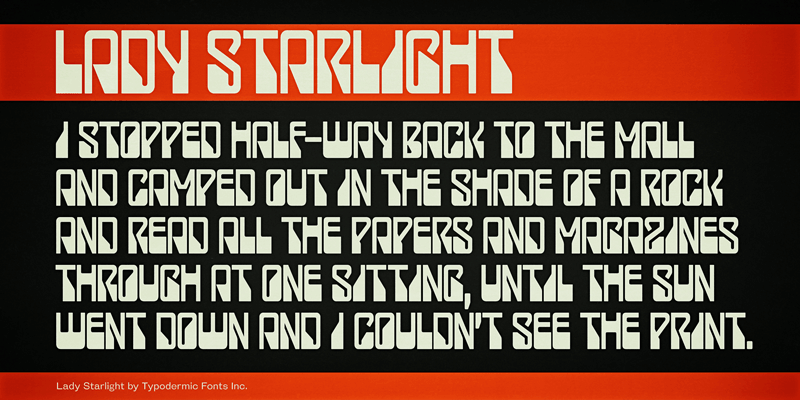
I created the original Lady Starlight font back in 1999, based on the Scorpions band logo. I later noticed that the same font had been used in the 1975 film, Rollerball. Recently, I redrew the entire font, heavier & more precise with more emphasis on working geometric shapes off the waistline. This font includes a license that allows free commercial use: sometimes referred to as a desktop license. This allows you to install the font on a computer and use it to create posters, web graphics, game graphics, t-shirts, videos, signs, logos and more. Read the license agreement for details. If you'd like to embed this font in an app, ebook, on the web or anything that's not covered by the desktop license agreement, visit the link below. You'll find distributors who offer different types of licenses or you can contact me for help. http://typodermicfonts.com/lady-starlight/ |